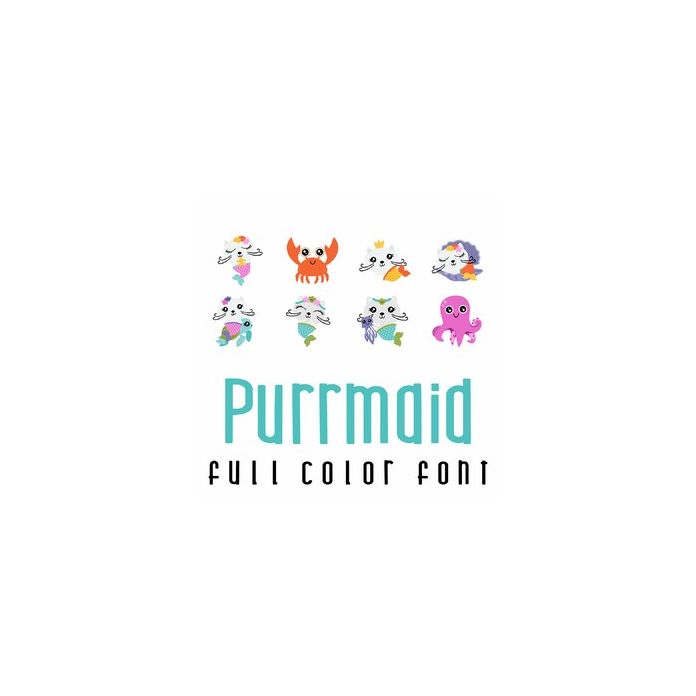
This adorable full color doodlebat font features 26 purrmaids purr-fect for year round! Use this font to create fun cards, crafts, gifts, decor, parties, planner stickers, scrap book pages and more!